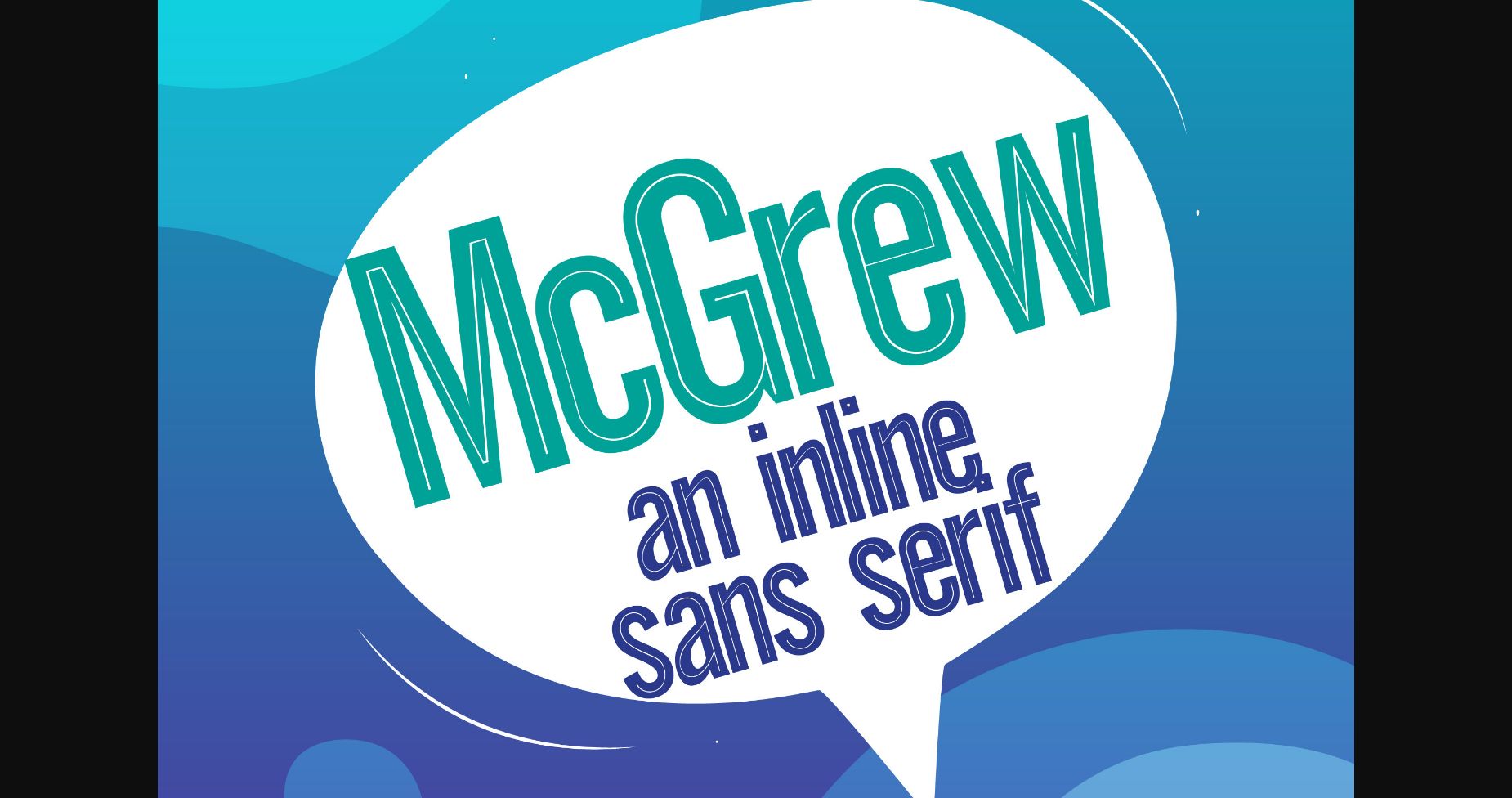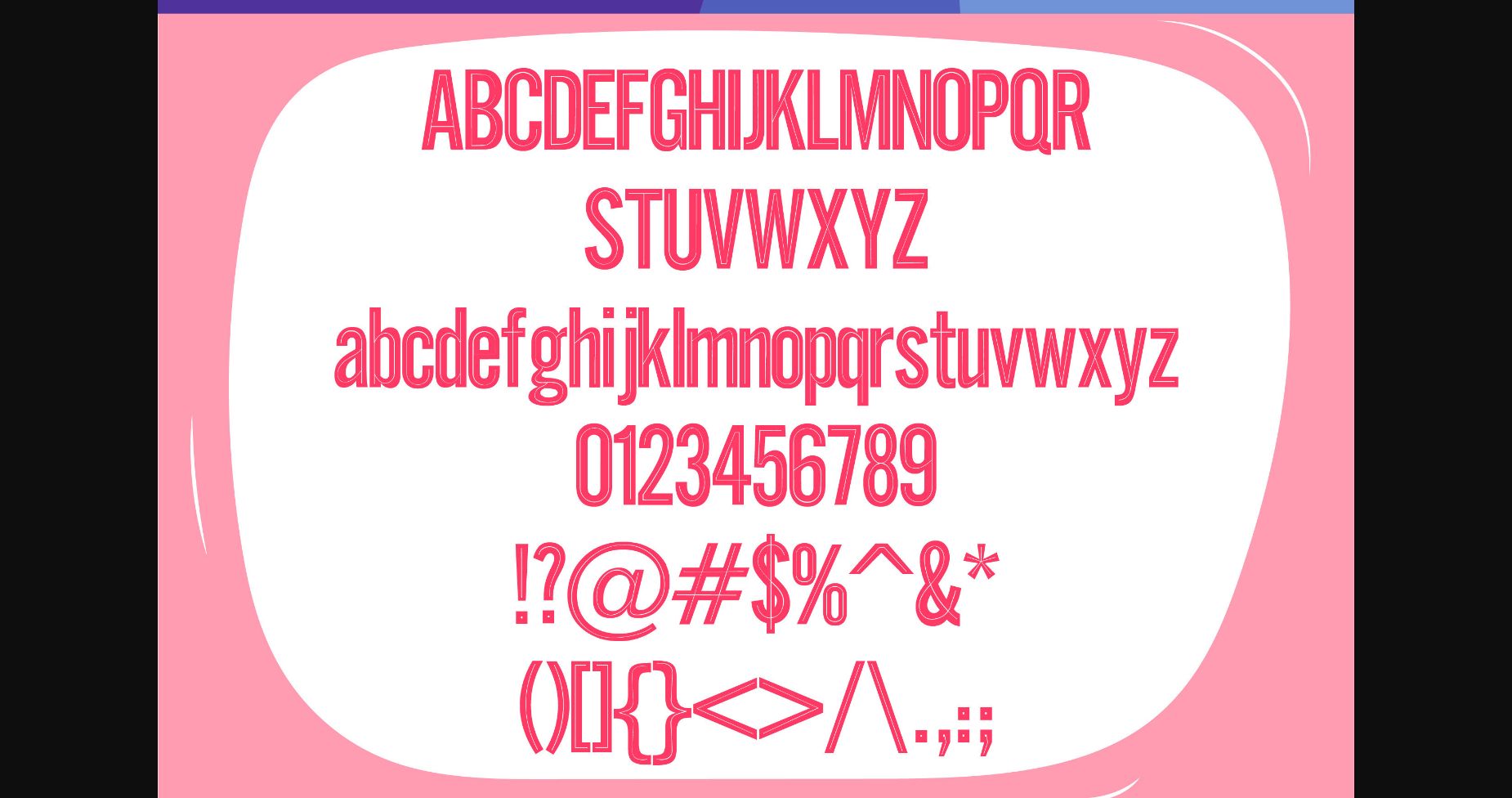
About McGrew Font
McGrew is a clean and neat sans serif font. No matter the topic, this font will be an incredible asset to your fonts’ library, as it has the potential to elevate any creation.